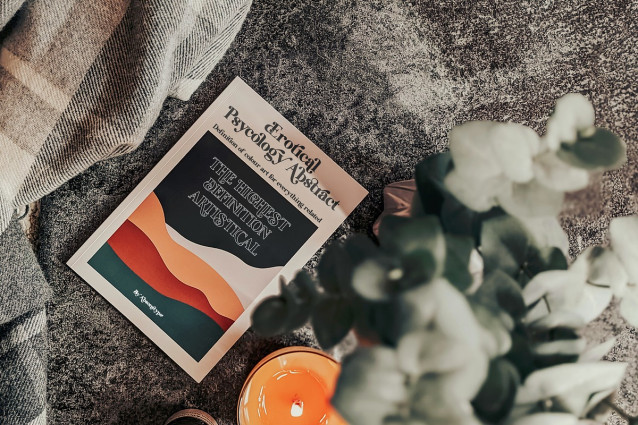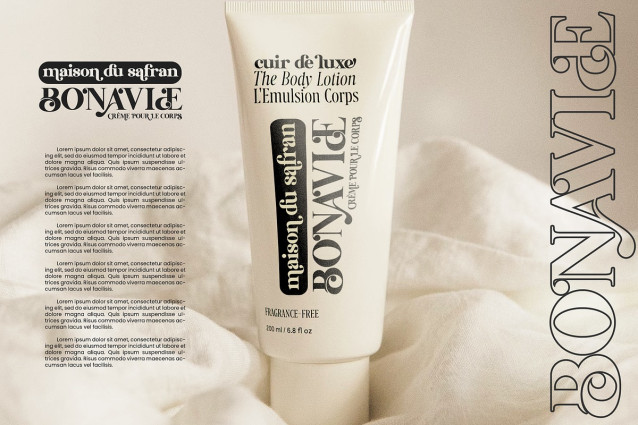
Aesthetic Bingo Font
Aesthetic Bingo Font is the Unique Serif display typeface with combine uppercase and lowercase looks and feel nice balanced. Provide with alternates and ligatures font in variant style make the design letter looks nice. Honestly it works perfectly for headlines, logos, posters, packaging, T-shirts and much more.